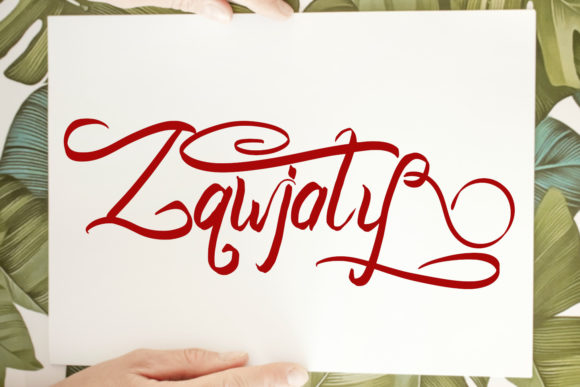
Embark on a typographic odyssey with Zawjaty, an enchanting script font family that captivates the senses and ignites the imagination. Its graceful curves and elegant flourishes evoke a sense of timeless beauty, inviting you to express your creativity in myriad ways.
Crafted with meticulous attention to detail, Zawjaty showcases a harmonious blend of classic and contemporary aesthetics. Its varying baseline and smooth lines create a dynamic rhythm, while gorgeous glyphs and stunning alternates add a touch of playful charm. Whether adorning wedding invitations, thank you cards, or heartfelt quotes, Zawjaty's versatility knows no bounds.
With Zawjaty as your creative companion, you'll discover endless possibilities for expression. Its inherent elegance elevates any design project, from logos and business cards to social media graphics and website headers. Unleash your imagination and let Zawjaty transform your words into a symphony of visual delight.
Experience the allure of Zawjaty today and embark on a journey of typographic exploration. Its captivating beauty and limitless potential await your creative touch.